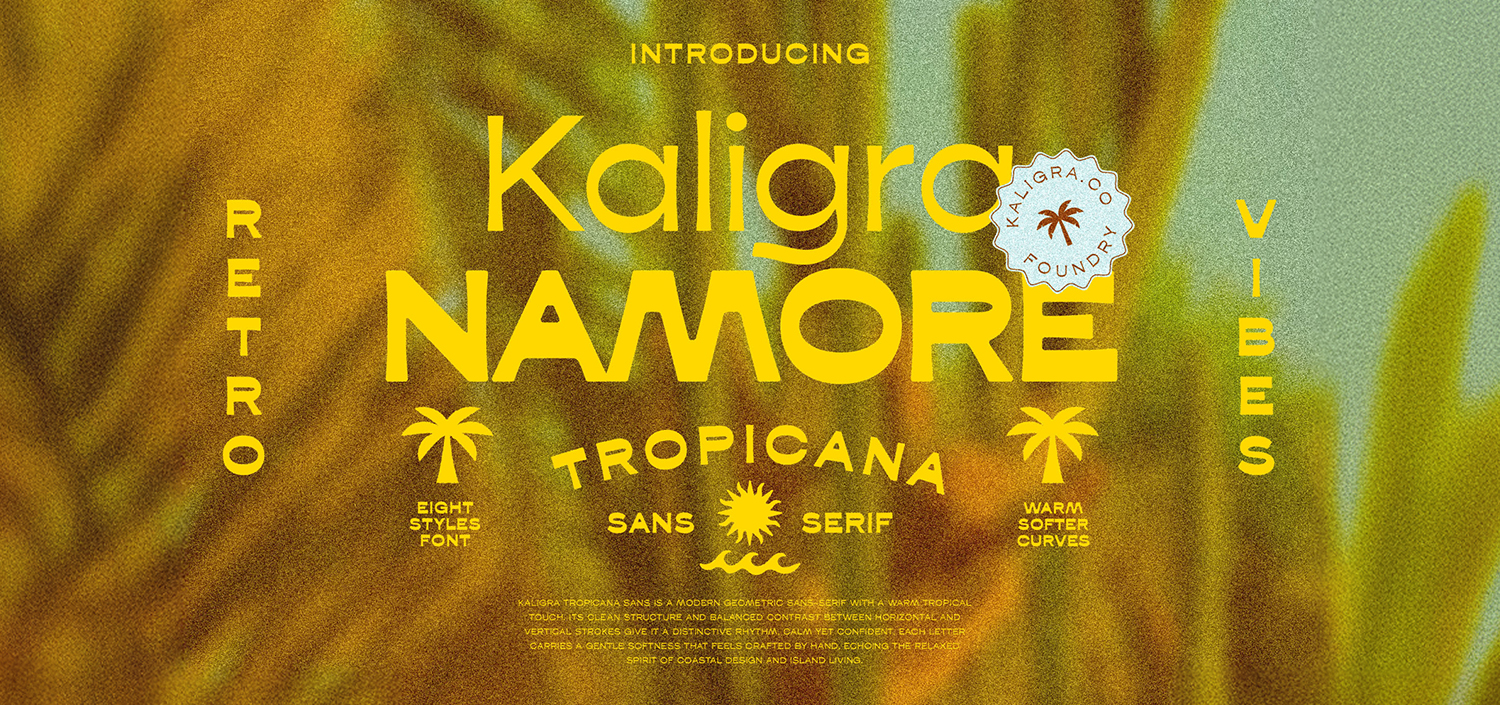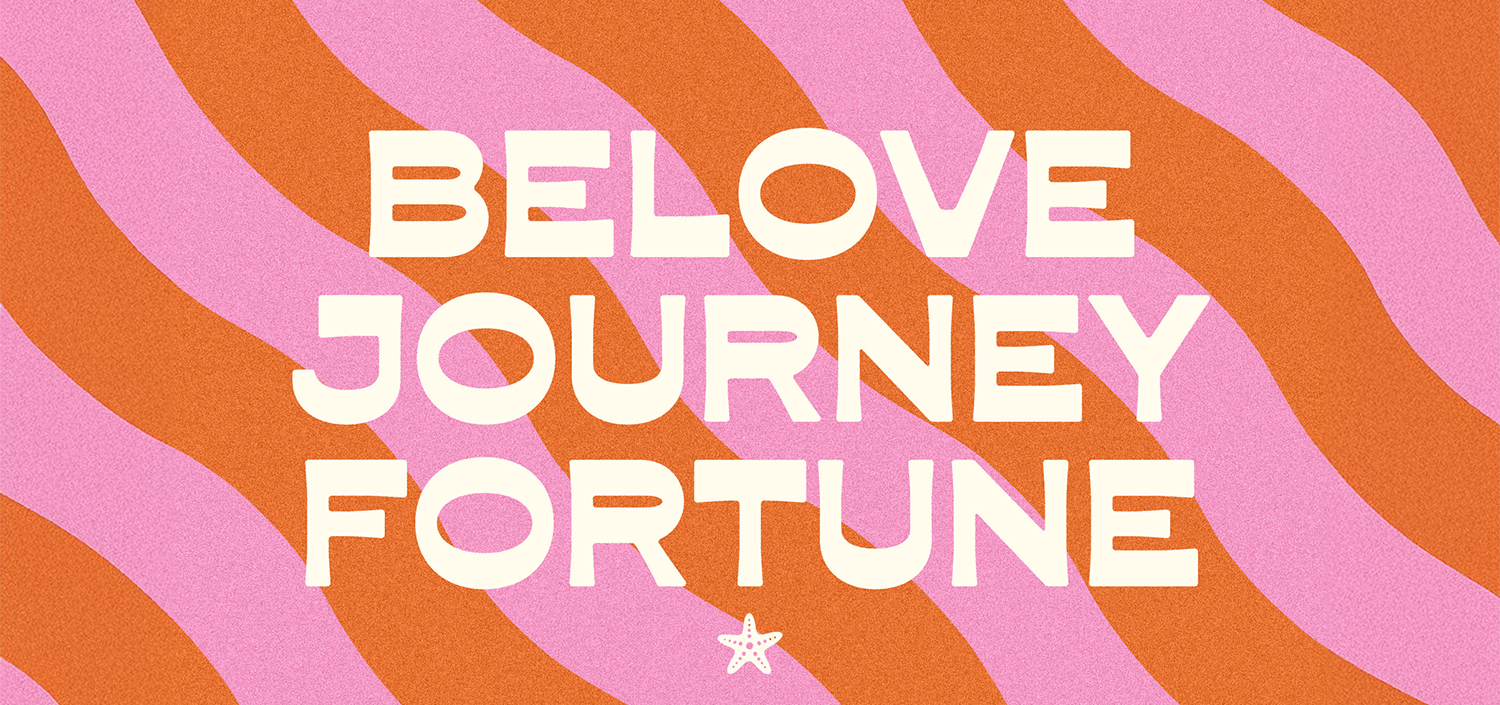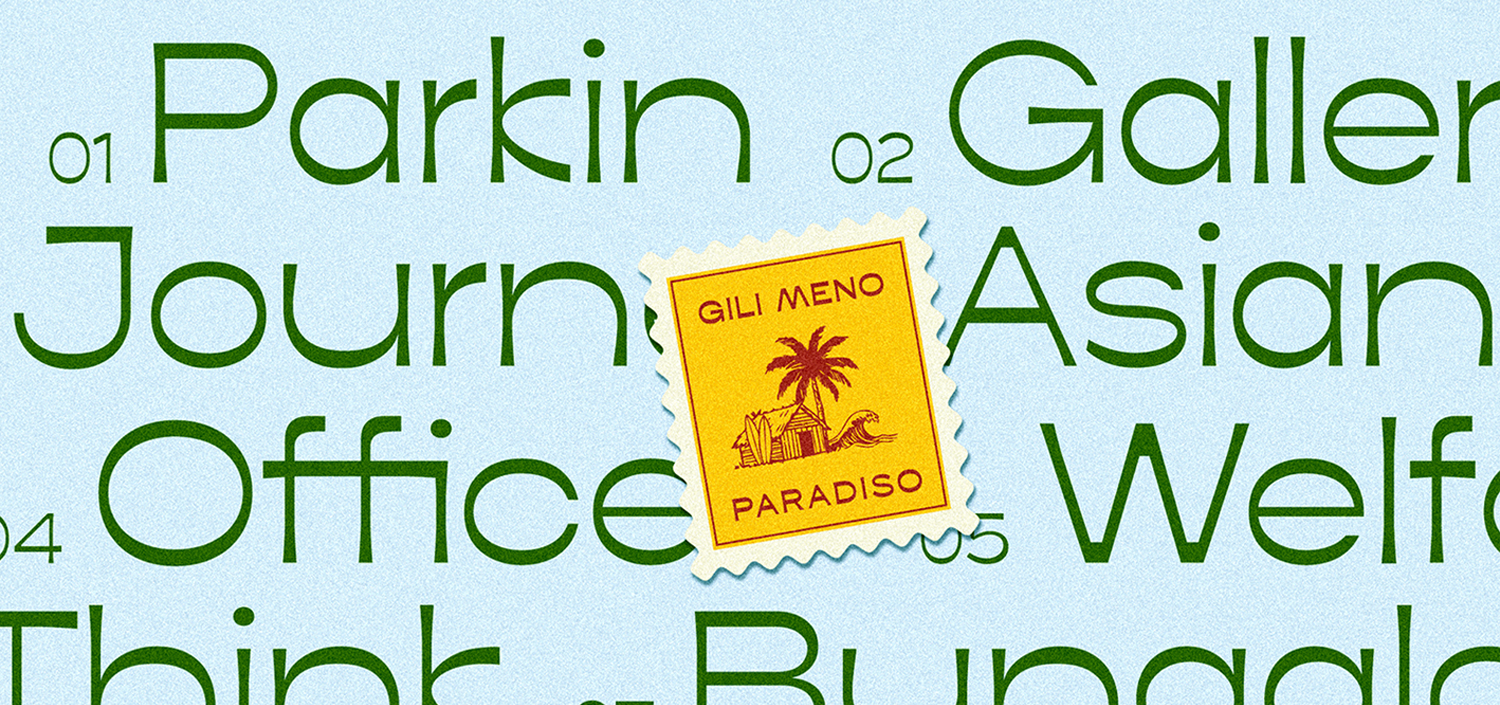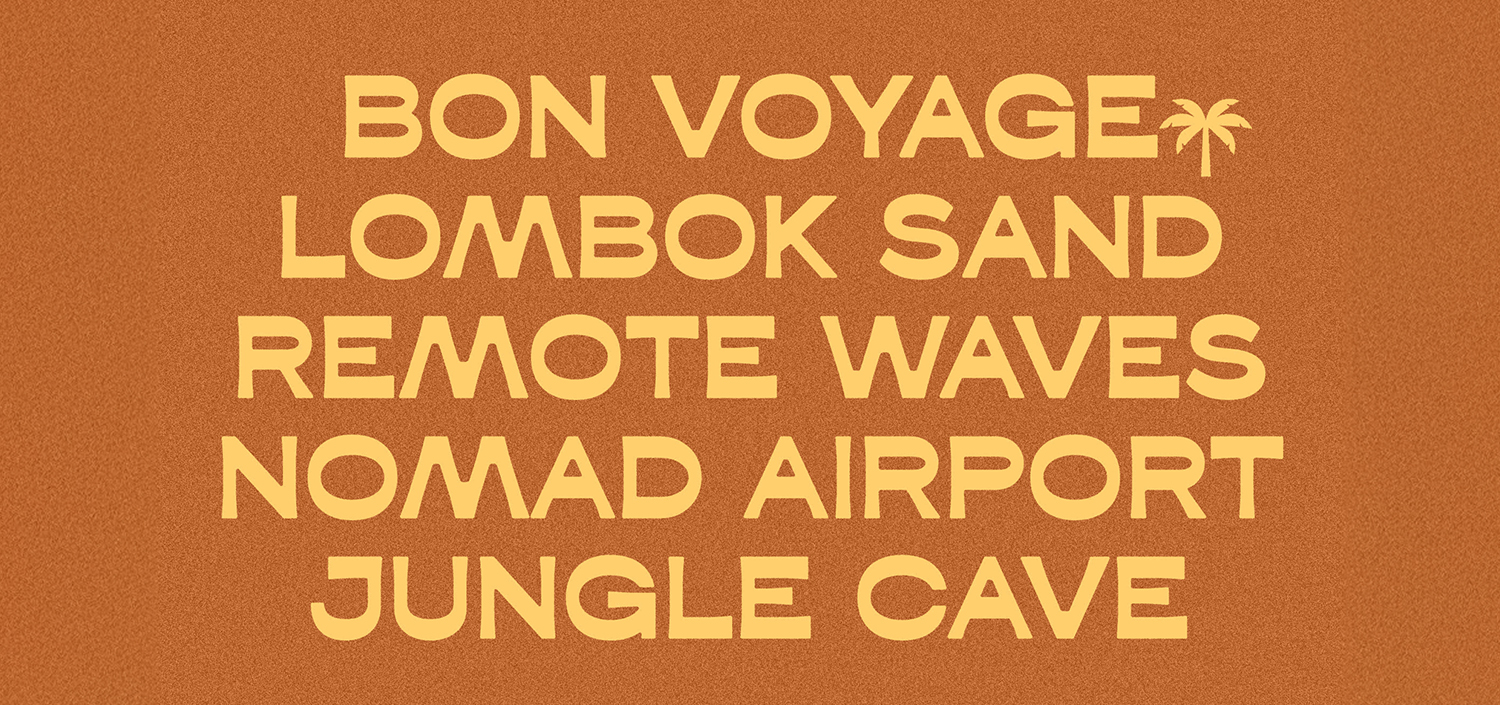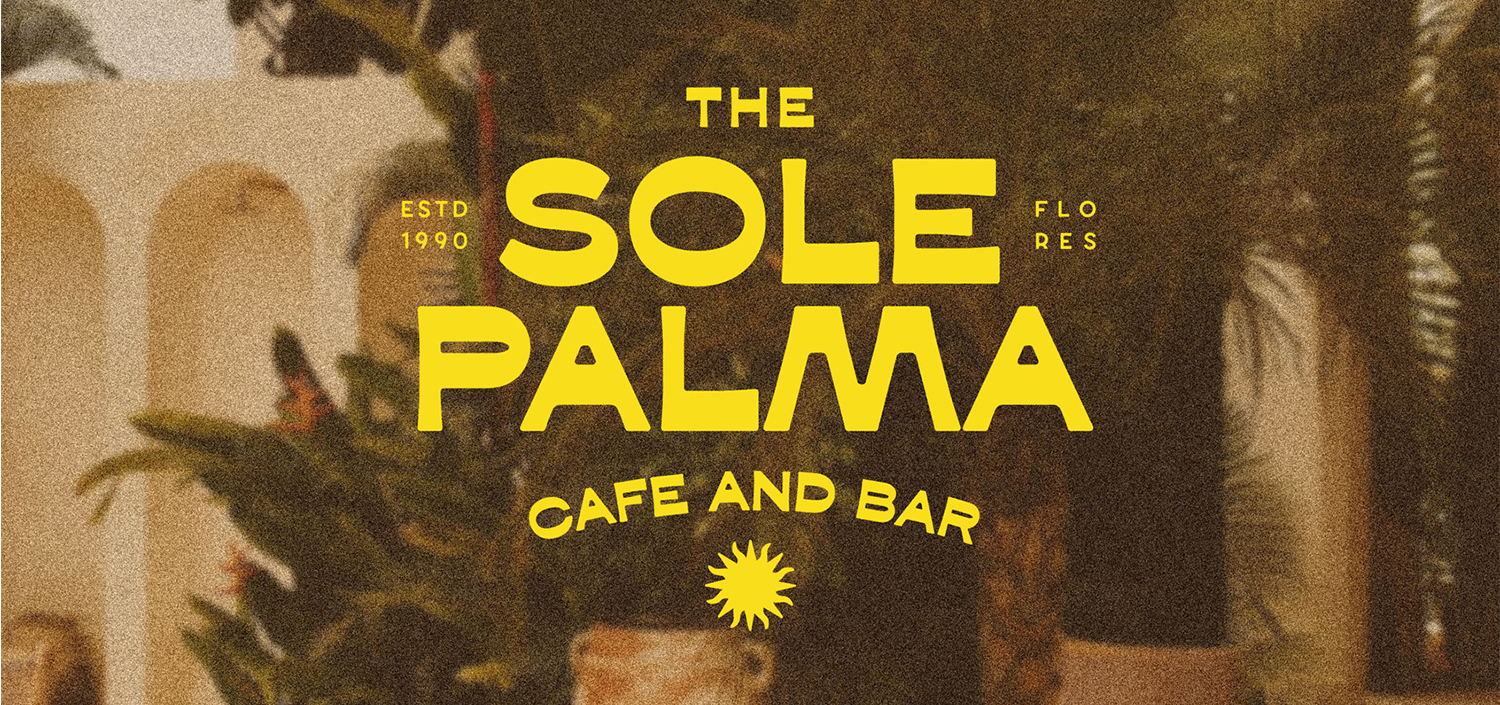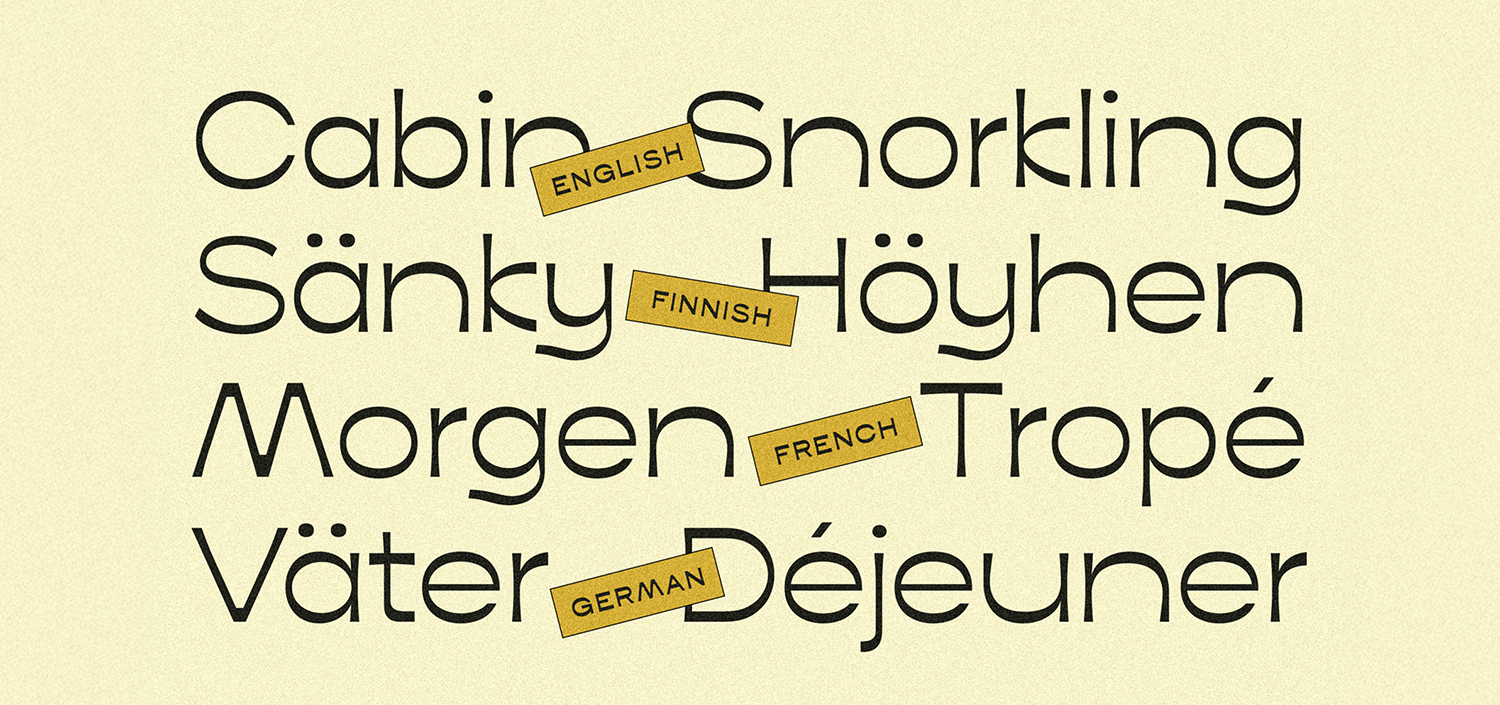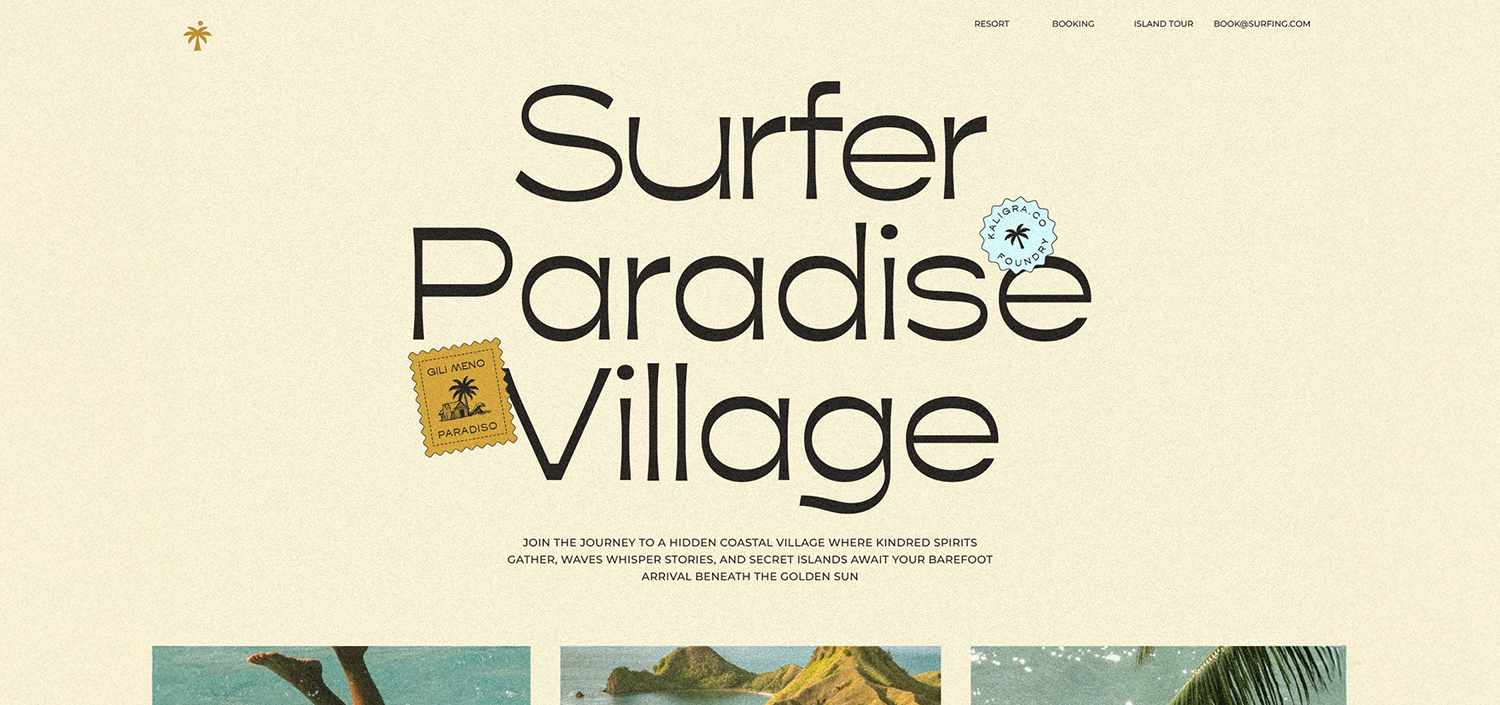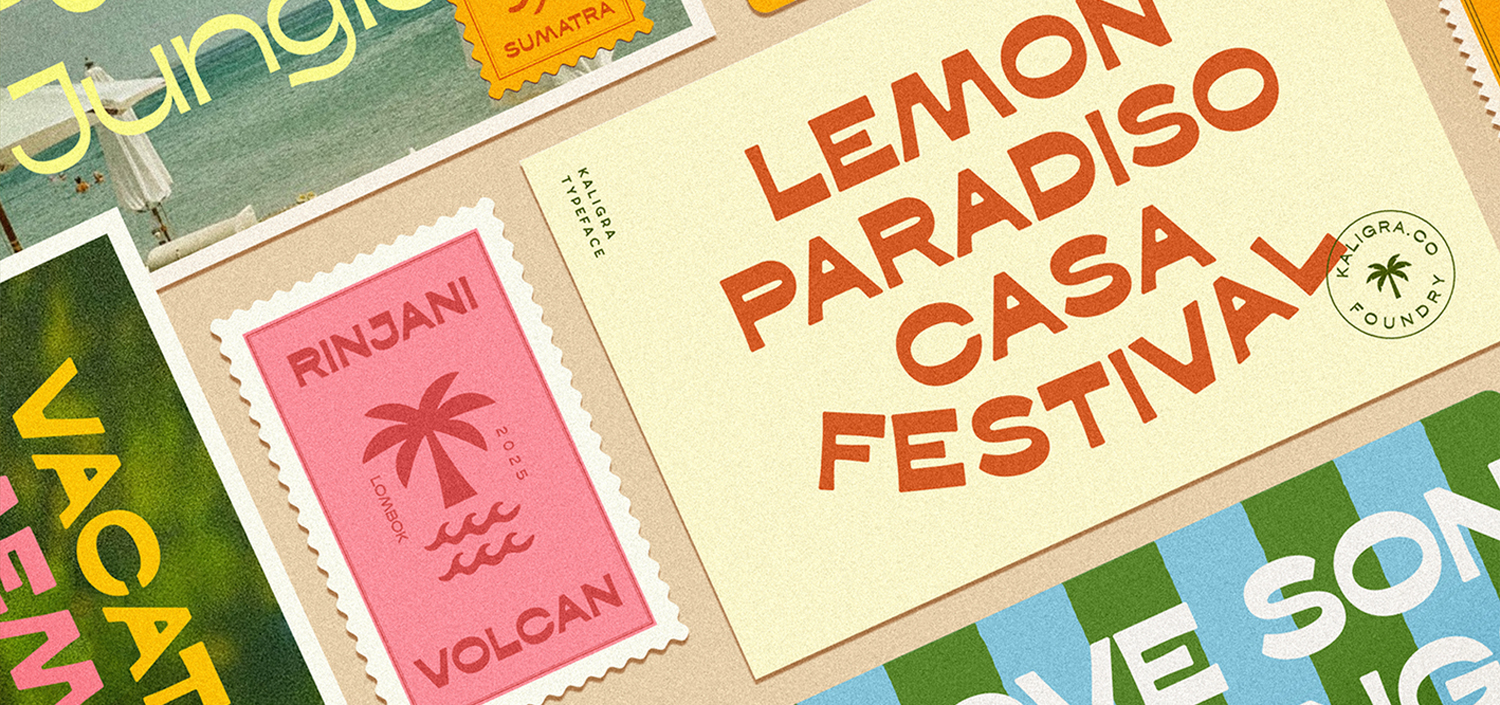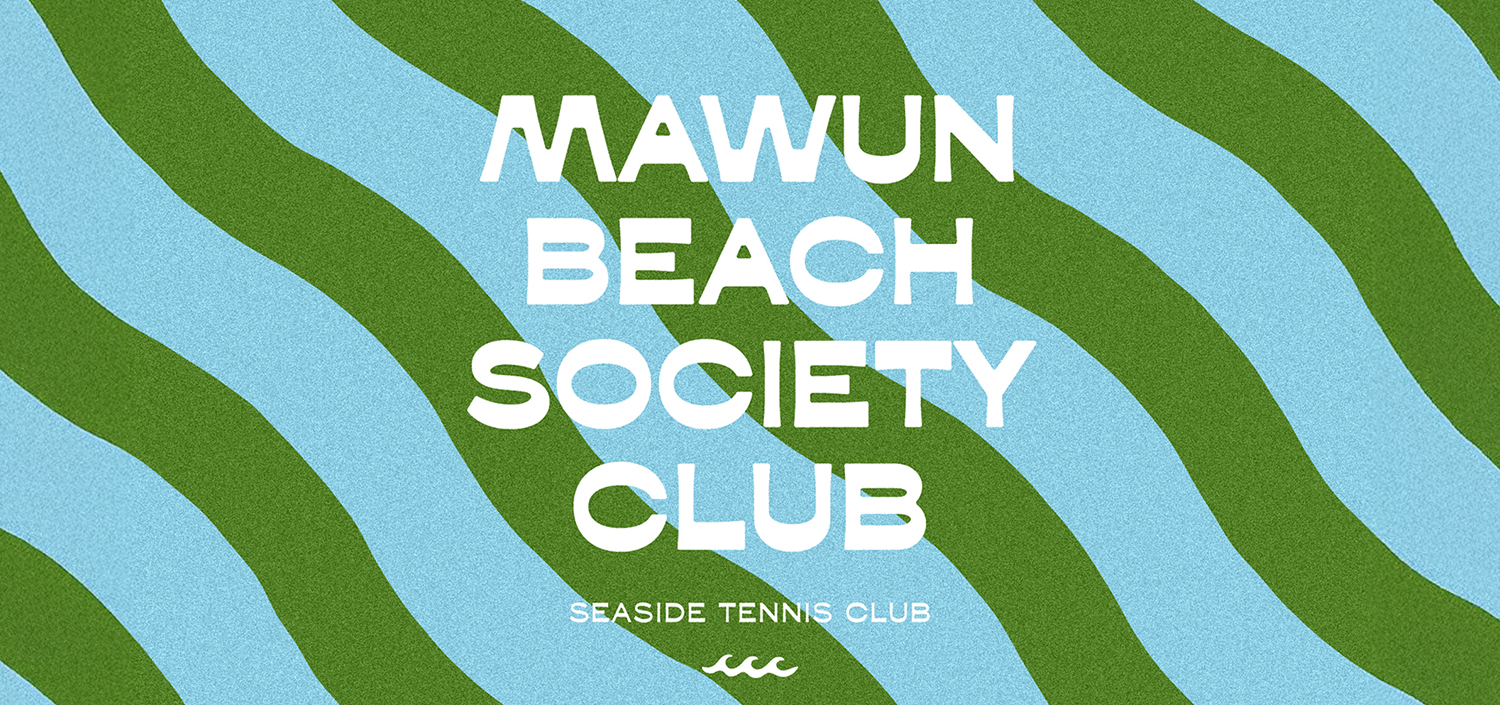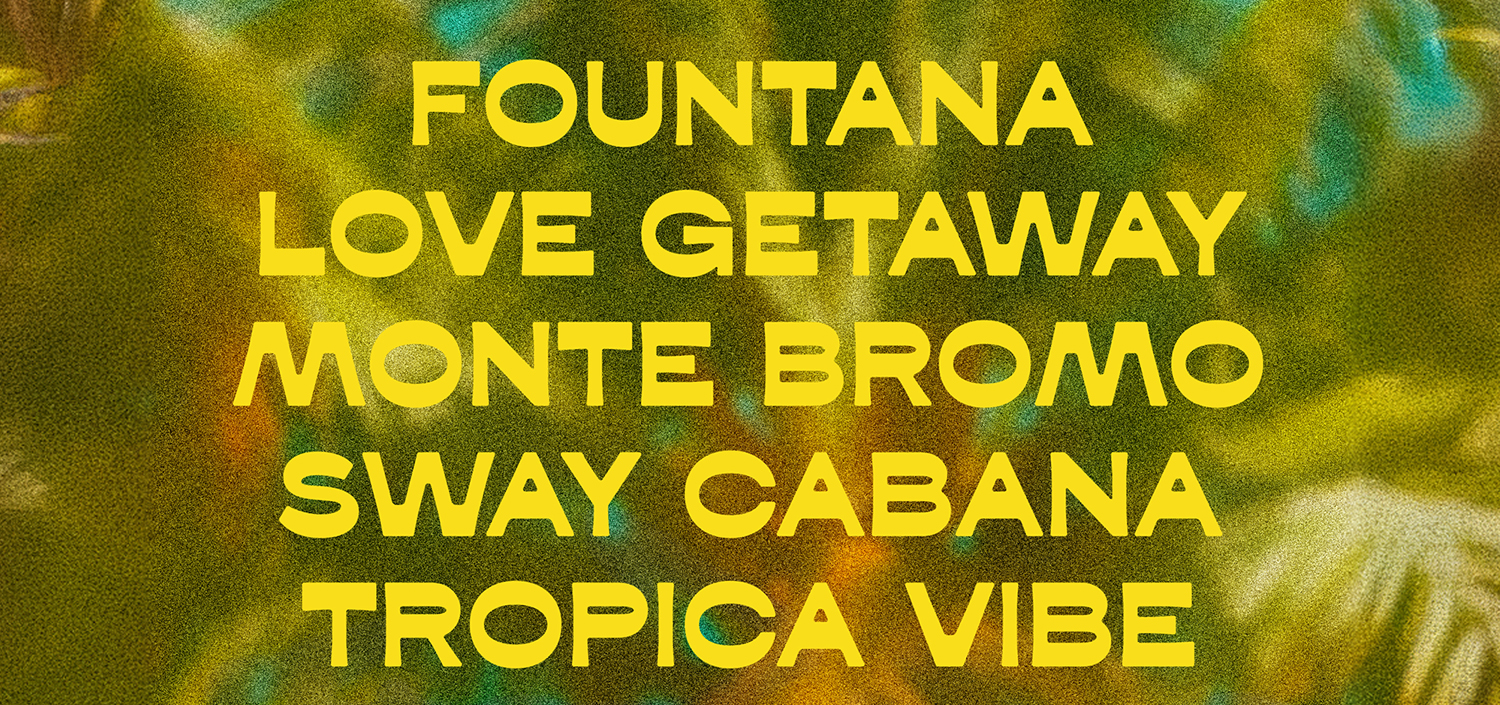
Kaligra Tropicana Sans
Kaligra Tropicana Sans is a modern geometric sans-serif with a warm tropical touch. Its clean structure and balanced contrast between horizontal and vertical strokes give it a distinctive rhythm, calm yet confident. Each letter carries a gentle softness that feels crafted by hand, echoing the relaxed spirit of coastal design and island living.
From light to bold, including smooth rounded styles, Kaligra shines in logos, travel editorials, fashion labels, websites, packaging, and lifestyle branding that seek modern simplicity with a hint of sun-soaked character.
- 8 Styles: Light, Regular, Semibold, Bold, Black + Rounded versions
- Geometric construction with balanced horizontal & vertical weight
- Warm curves and natural proportions for a relaxed tropical vibe
- Excellent legibility for headlines, branding, and UI design
- Uppercase & lowercase, numerals, punctuation, and multilingual support